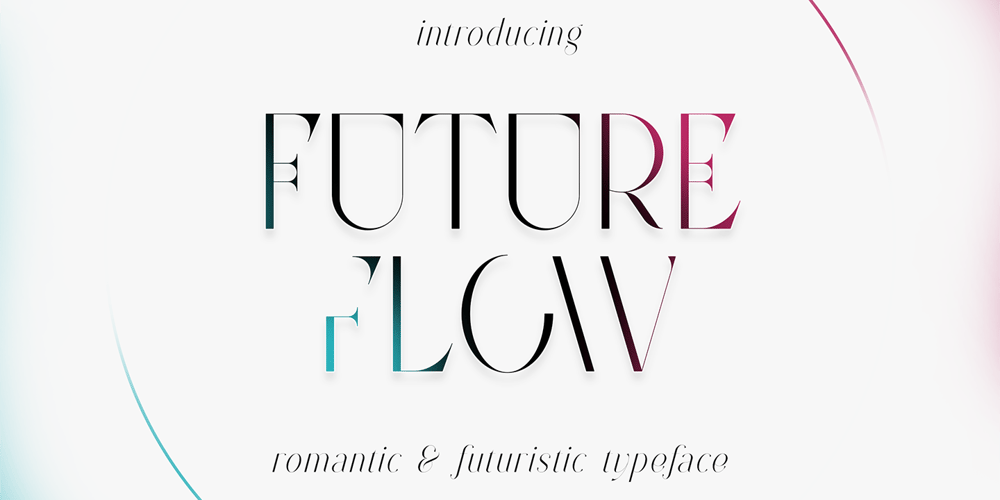
Future Flow Font Family was designed by Vladimir Fedotov, Plamen Petrov and published by VP Creative Shop. Future Flow contains 8 styles and family package options. Introducing Future Flow typeface – 8 fontsLooking for a font that combines classic elegance, romance, and a futuristic vibe? Look no further than Future Flow! This unique typeface offers eight distinct font styles, each with its own personality and flair. Plus, it’s designed to support a whopping 87 different languages, making it a versatile choice for designers and creatives around the world. So whether you’re creating a logo, designing a website, or crafting a marketing campaign, Future Flow has got you covered. Try it out today and see where its flowing curves and sleek lines can take you!Language Support : Afrikaans, Albanian, Asu, Basque, Bemba, Bena, Breton, Chiga, Colognian, Cornish, Czech, Danish, Dutch, Embu, English, Estonian, Faroese, Filipino, Finnish, French, Friulian, Galician, Ganda, German, Gusi,i Hungarian, Indonesian, Irish, Italian, Jola-Fonyi, Kabuverdianu, Kalenjin, Kamba, Kikuyu, Kinyarwanda, Latvian, Lithuanian, Lower Sorbian, Luo, Luxembourgish, Luyia, Machame, Makhuwa-Meetto, Makonde, Malagasy, Maltese, Manx, Meru, Morisyen, North Ndebele, Norwegian, Bokmål, Norwegian, Nynorsk, Nyankole, Oromo, Polish, Portuguese, Quechua, Romanian, Romansh, Rombo, Rundi, Rwa, Samburu, Sango, Sangu, Scottish, Gaelic, Sena, Shambala, Shona, Slovak, Soga, Somali, Spanish, Swahili, Swedish, Swiss, German, Taita, Teso, Turkish, Upper, Sorbian, Uzbek (Latin), Volapük, Vunjo, Walser, Welsh, Western Frisian, ZuluFEATURES Uppercase, lowercase, numeral, punctuation & Symbol Regular and italic Cut, display, futuristic, line, stencil, two line styles 8 fonts No special software is required to type out the standard characters of the Typeface. Feel free to contact me if you have any questions!Mock ups and backgrounds used are not included.Thank you! Enjoy!